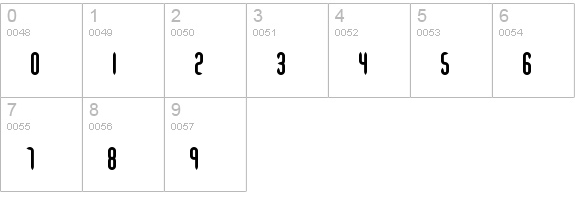
Slender Mini BRK Font Details
Slender Mini BRK font is a sleek and elegant typeface that exudes sophistication and modernity. With its slender and elongated letterforms, this font captures attention and adds a touch of class to any design project. Featuring a perfect balance between thin strokes and rounded curves, Slender Mini BRK font offers versatility for both headlines and body text. Whether used for a professional presentation, a stylish magazine layout, or a contemporary website design, this font effortlessly brings a sense of refinement to any composition. One of the most appealing aspects of Slender Mini BRK font is that it is freely available for download at FontsMarket.com. This means that designers, artists, and creatives can access this exceptional typeface without any cost, allowing them to enhance their projects with a high-quality font without breaking the bank. Slender Mini BRK font is compatible with various design software and can be easily installed and used on both Windows and Mac platforms. Its extensive character set includes uppercase and lowercase letters, numerals, punctuation marks, and special symbols, ensuring that it can accommodate a wide range of design needs. With its sleek and modern aesthetic, Slender Mini BRK font is perfect for creating eye-catching logos, branding materials, advertisements, and more. Its legibility and clean design make it suitable for both print and digital applications, ensuring a consistent and visually appealing experience across different mediums. In conclusion, Slender Mini BRK font is a stylish and versatile typeface that combines elegance with functionality. Its availability as a free download on FontsMarket.com makes it an accessible choice for designers seeking a high-quality font without any financial constraints. Elevate your design projects with the timeless beauty of Slender Mini BRK font and create stunning visuals that leave a lasting impression.